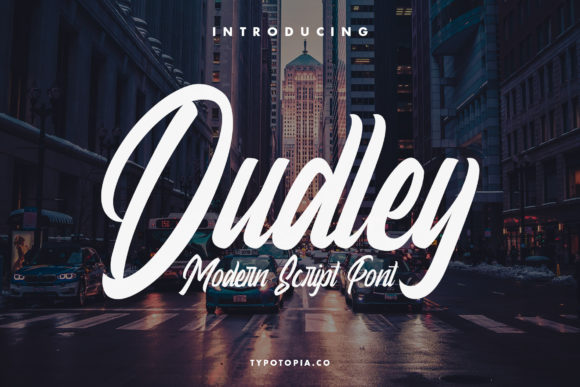
Dudley Font is a bold, energetic personality bundled into a modern script font. It's a font that oozes confidence, with a unique and playful twist that gives it a fresh, modern edge.
Drawing inspiration from the world of sports, Dudley Font is the perfect choice for creating eye-catching headlines, logos, and branding materials that demand attention. Its dynamic curves and playful strokes evoke a sense of movement and energy, making it ideal for capturing the essence of sports and competition.
Crafted with precision and care, each letter in Dudley Font carries a playful energy, bringing a touch of fun and excitement to your designs. With its bold presence and impactful style, this font will elevate your creations to the next level.
But what truly sets Dudley Font apart is its versatility. Its unique combination of modern and playful elements makes it a standout choice not only for sports-related designs but also for a wide range of creative projects.
Whether you're crafting social media graphics, designing posters, or creating eye-catching logos, Dudley Font has the power to transform your ideas into captivating visuals. Its bold strokes and energetic curves are sure to leave a lasting impression on your audience, making your designs stand out from the crowd.
So why settle for ordinary fonts when you can unleash the power of Dudley Font? Its unique personality, dynamic style, and versatility make it an indispensable asset for any designer looking to create truly impactful creations.